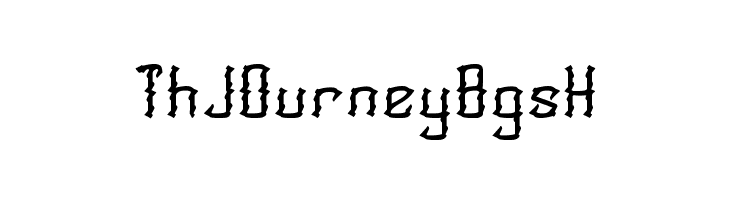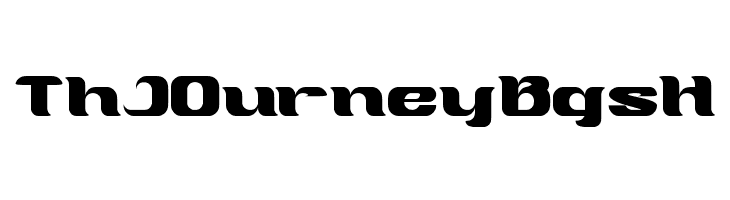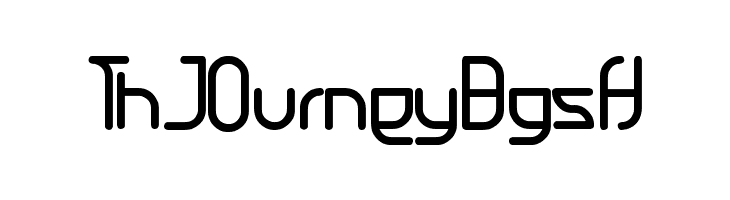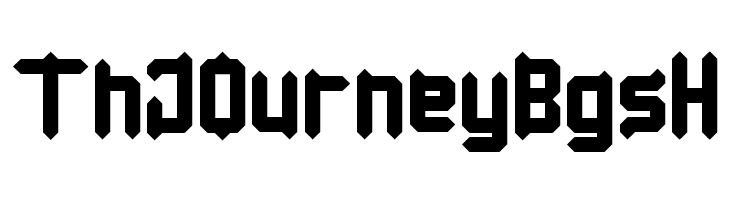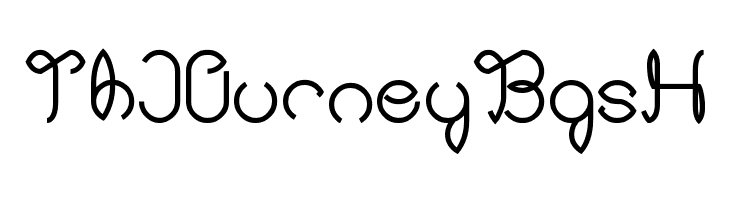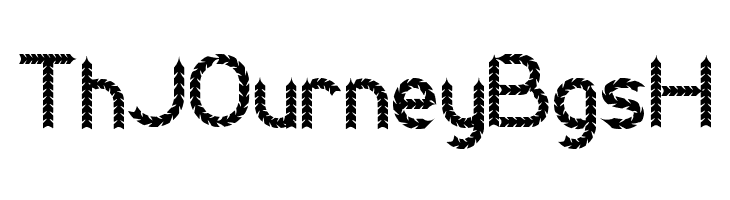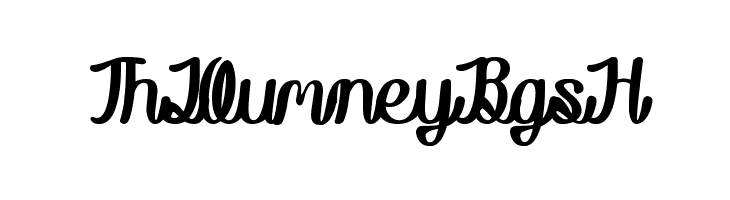
A decorative, gothic-inspired font with sharp, jagged edges and pointed serifs.
A bold, geometric font with rounded edges and thick strokes, perfect for retro-modern designs.
A bold, dynamic font with thick strokes and a slightly condensed form.
A modern, geometric font with rounded edges and a clean, futuristic style.
A bold, geometric font with sharp angles and a blocky design.
A playful, handmade-style font with loops and curves, perfect for creative projects.
A bold, arrow-themed font with a geometric and dynamic design.
A playful, bold script font with interconnected, rounded letters.
A decorative, hand-drawn font with swirling, sketch-like strokes.
A playful, handwritten script font with smooth, flowing lines.